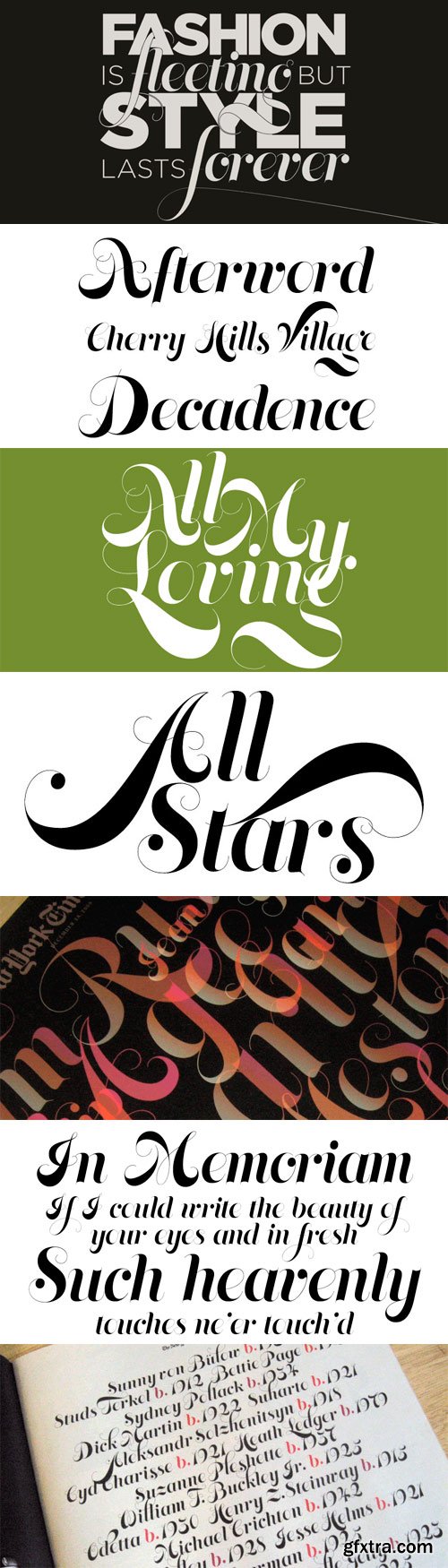
- The tradition at the New York Times magazine has been to dedicate the year’s last issue to the people who passed away during the year, especially those whose lives have affected us. Art director Nancy Harris Rouemy, whose typographic design sense has earned her many prestigious awards over the years, decided on an all-type magazine cover for the 2008 issue, and commissioned Canada Type to do a new typeface especially for that project. Now Memoriam is finally here in retail form—not least because hundreds of people have asked for it. Though a few other Canada Type faces were used in the magazine with great results over the preceding months (mainly Ambassador Script and Sympathique), Nancy thought a some of the ideas in Jezebel's uppercase and Treasury's lowercase would be a good fit onto an all-type commemorative cover, but with a much higher contrast and the infusion of a more luxurious and elegant brand of poster calligraphy that doesn't date itself. After a few different attempts, the first shapes were born, and six weeks later there were enough forms to do the cover. The typeface was such a success with the editors and designers, it was used all over the magazine, instead of just the cover.